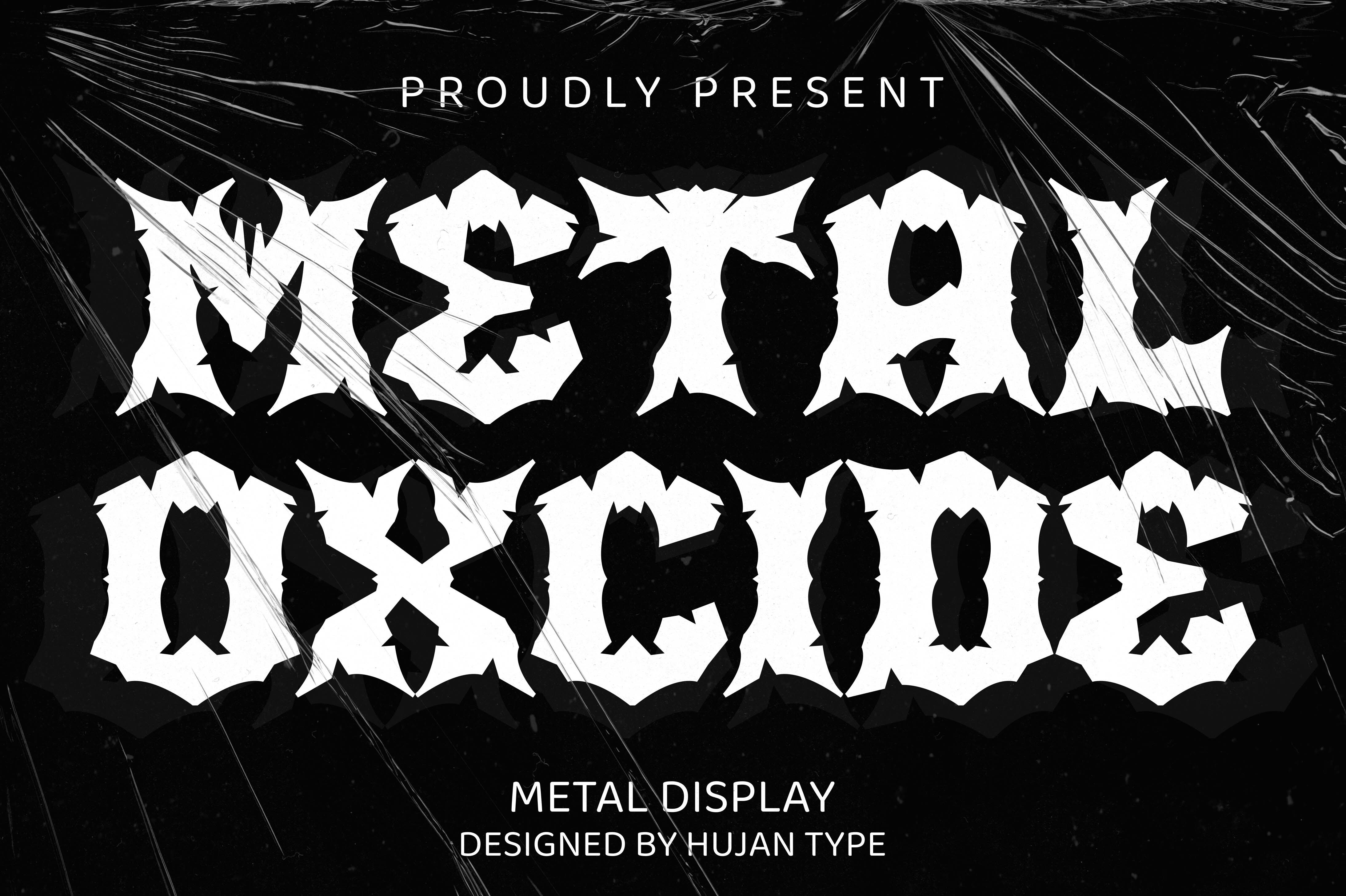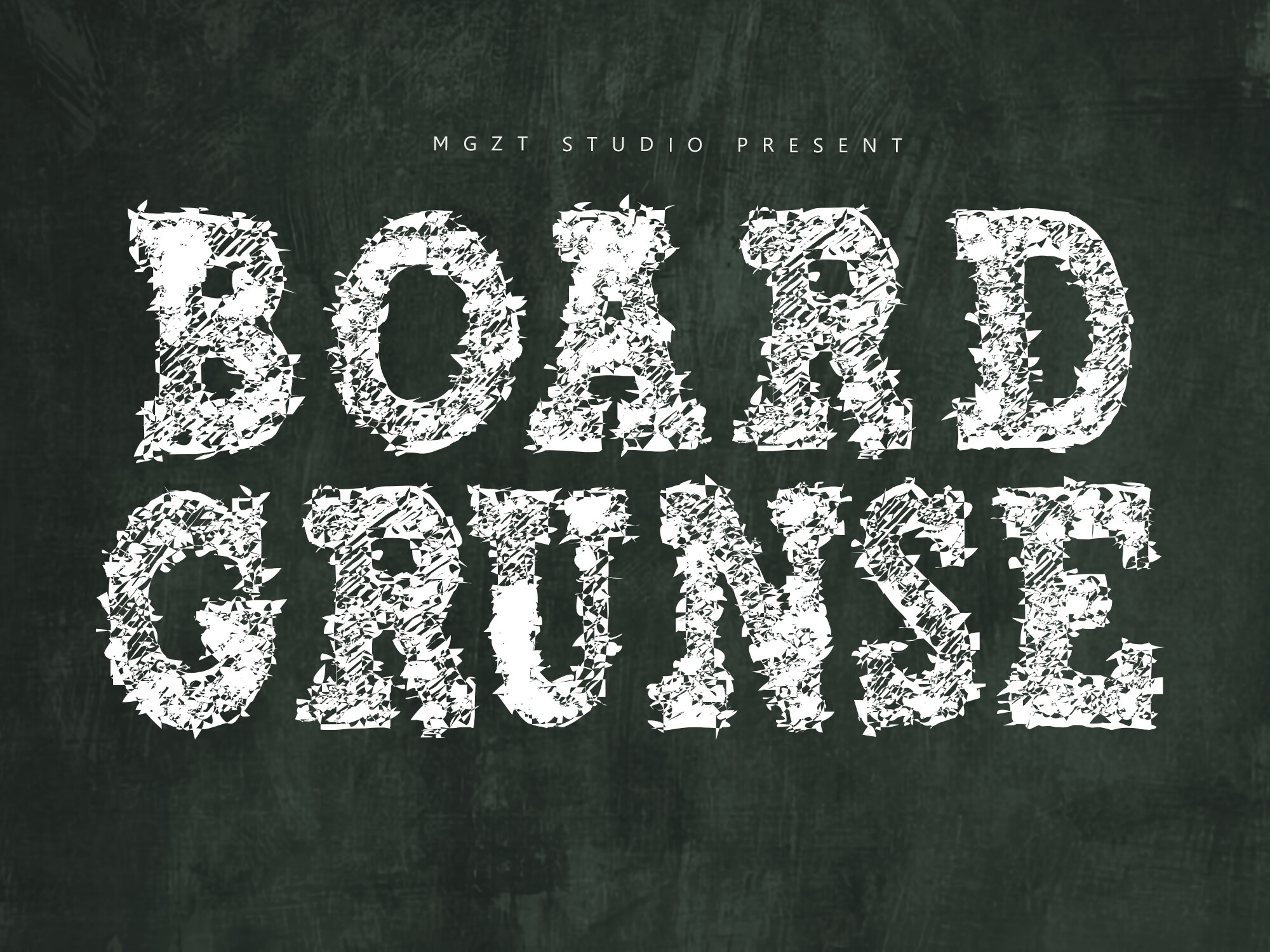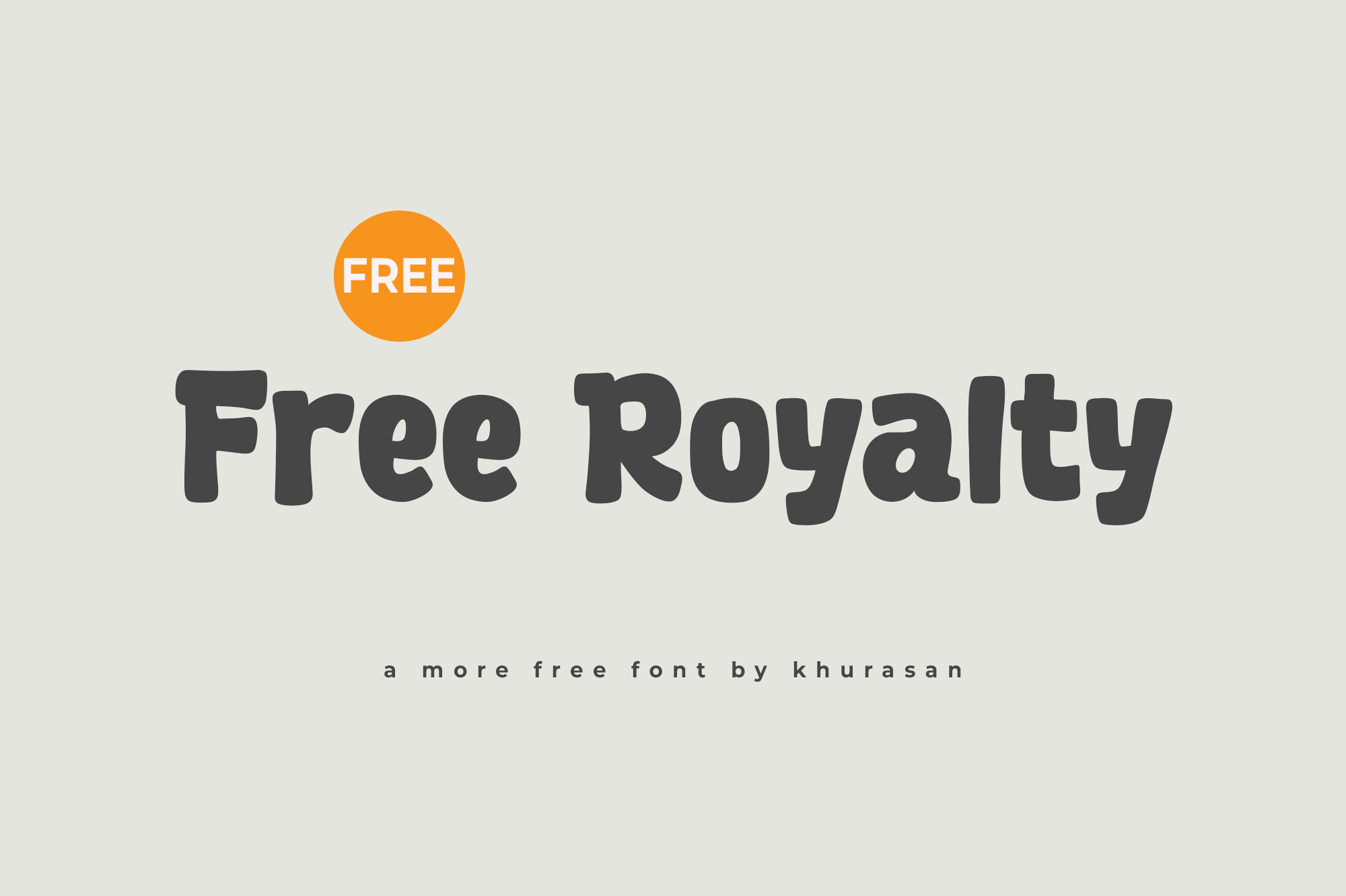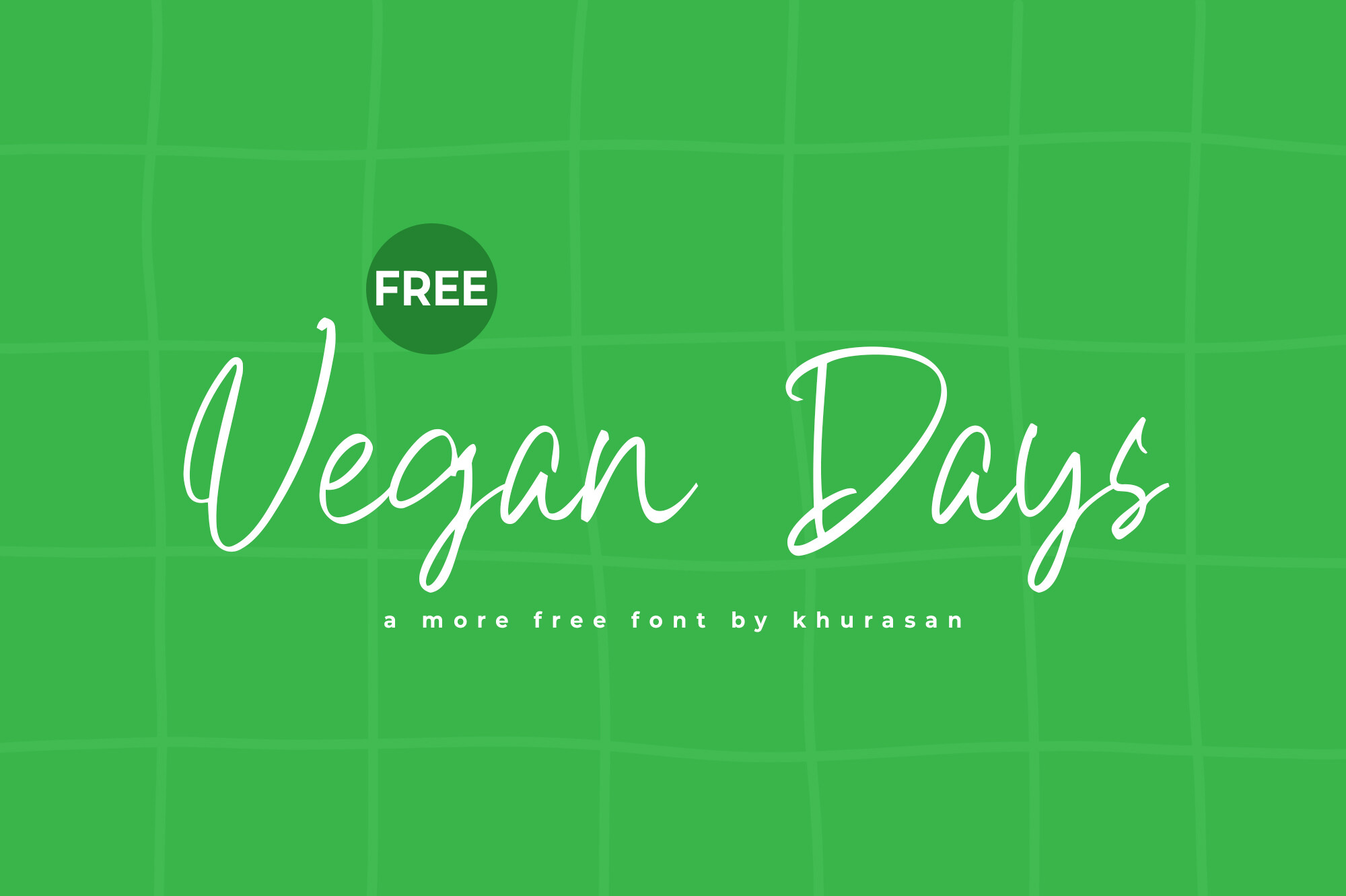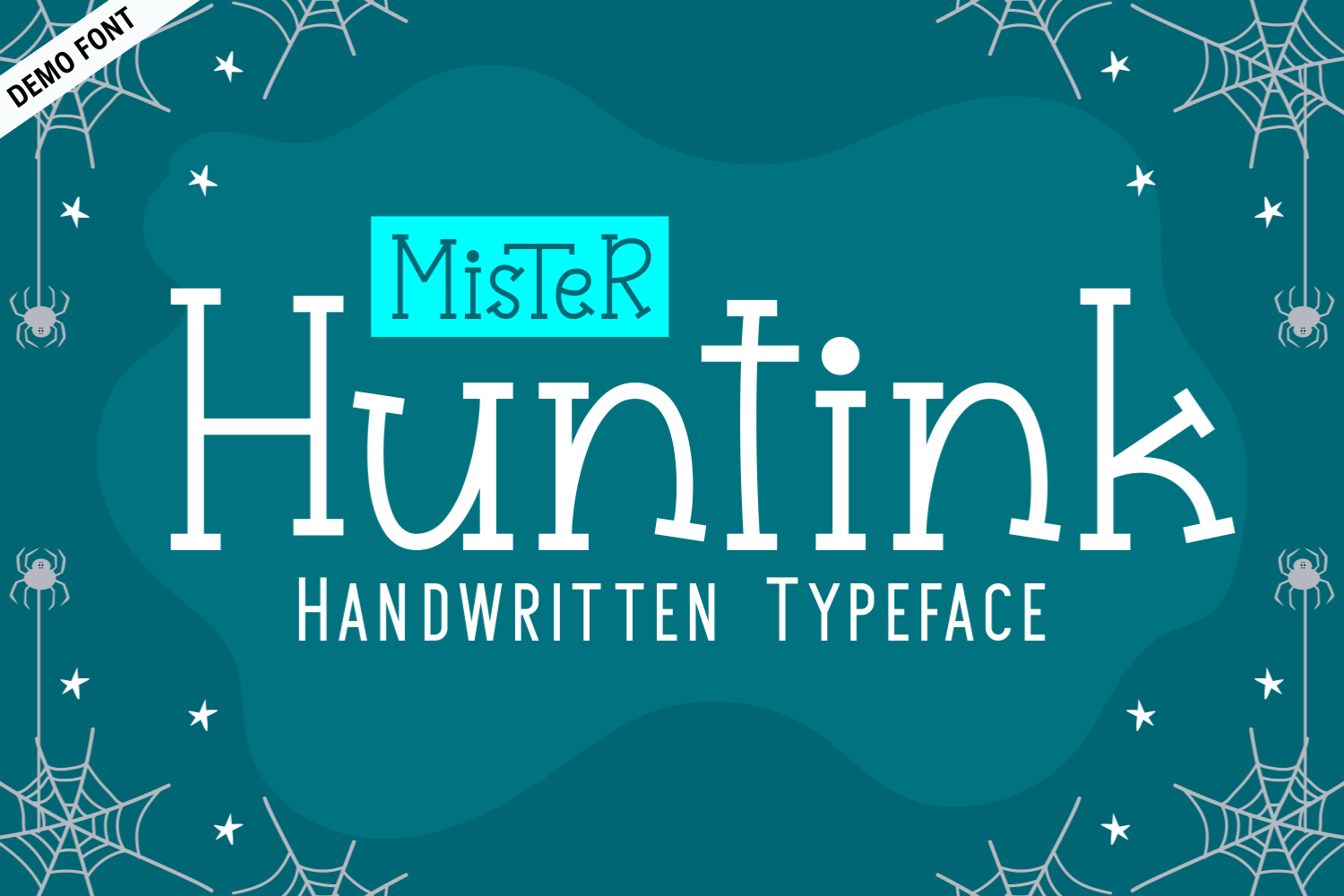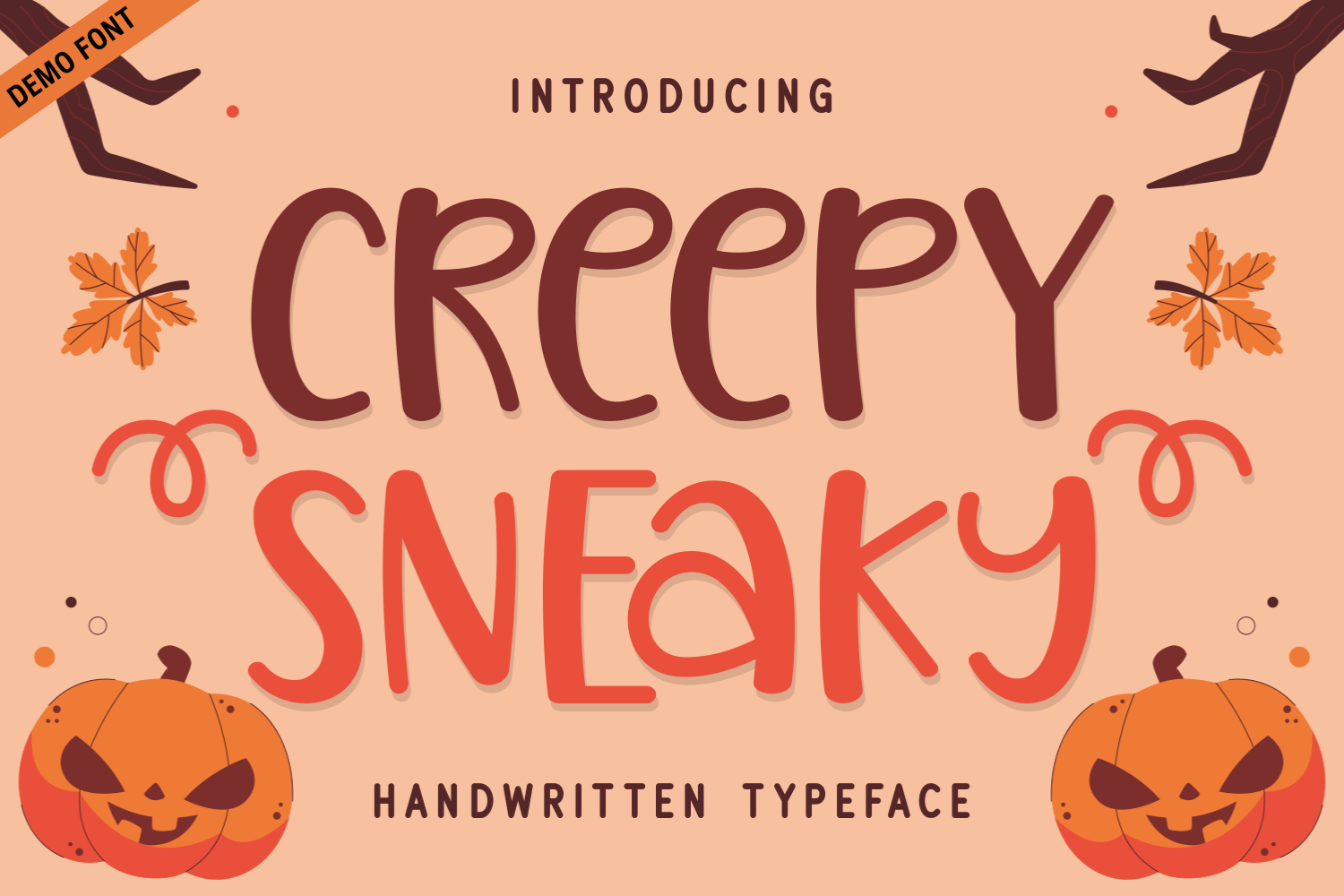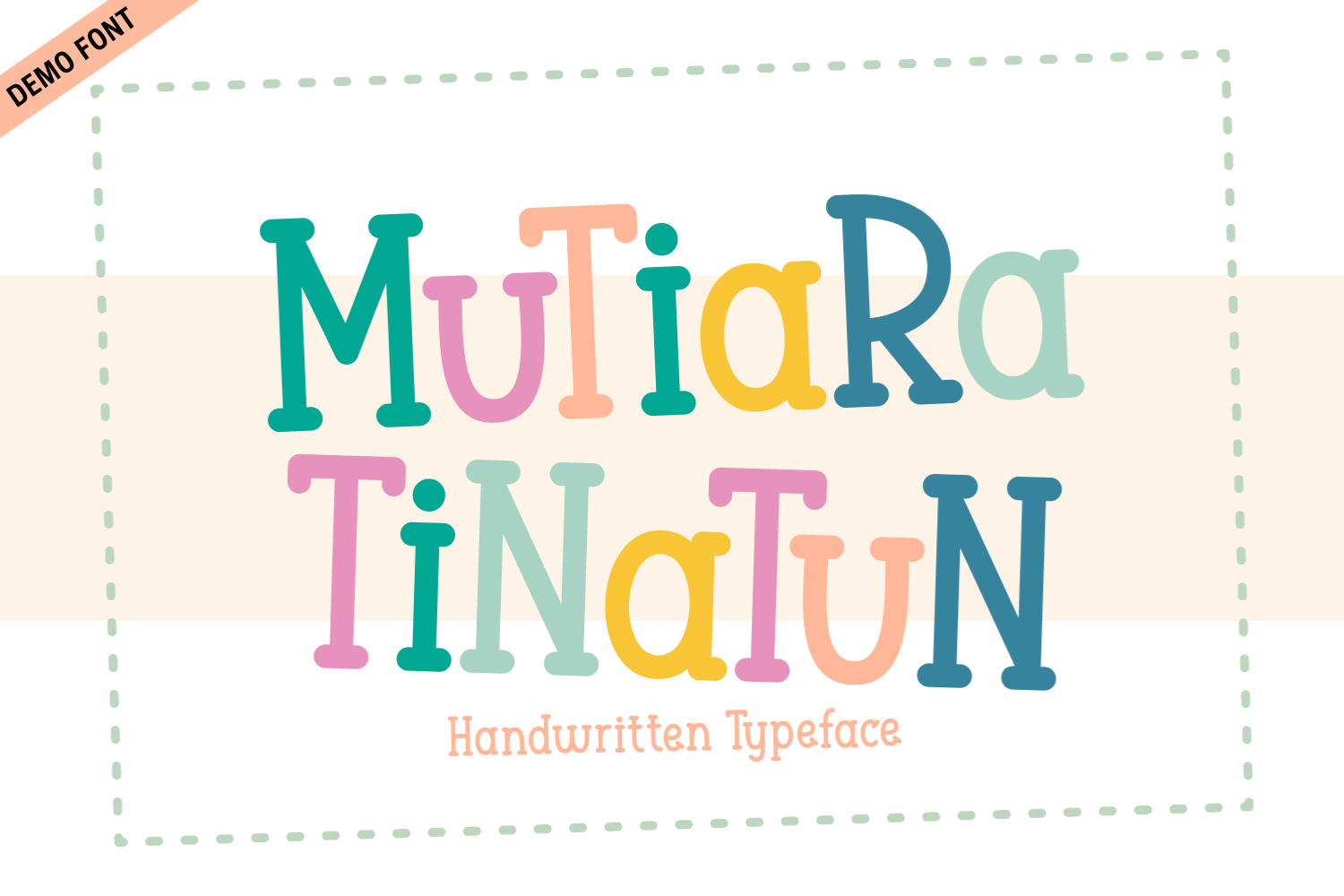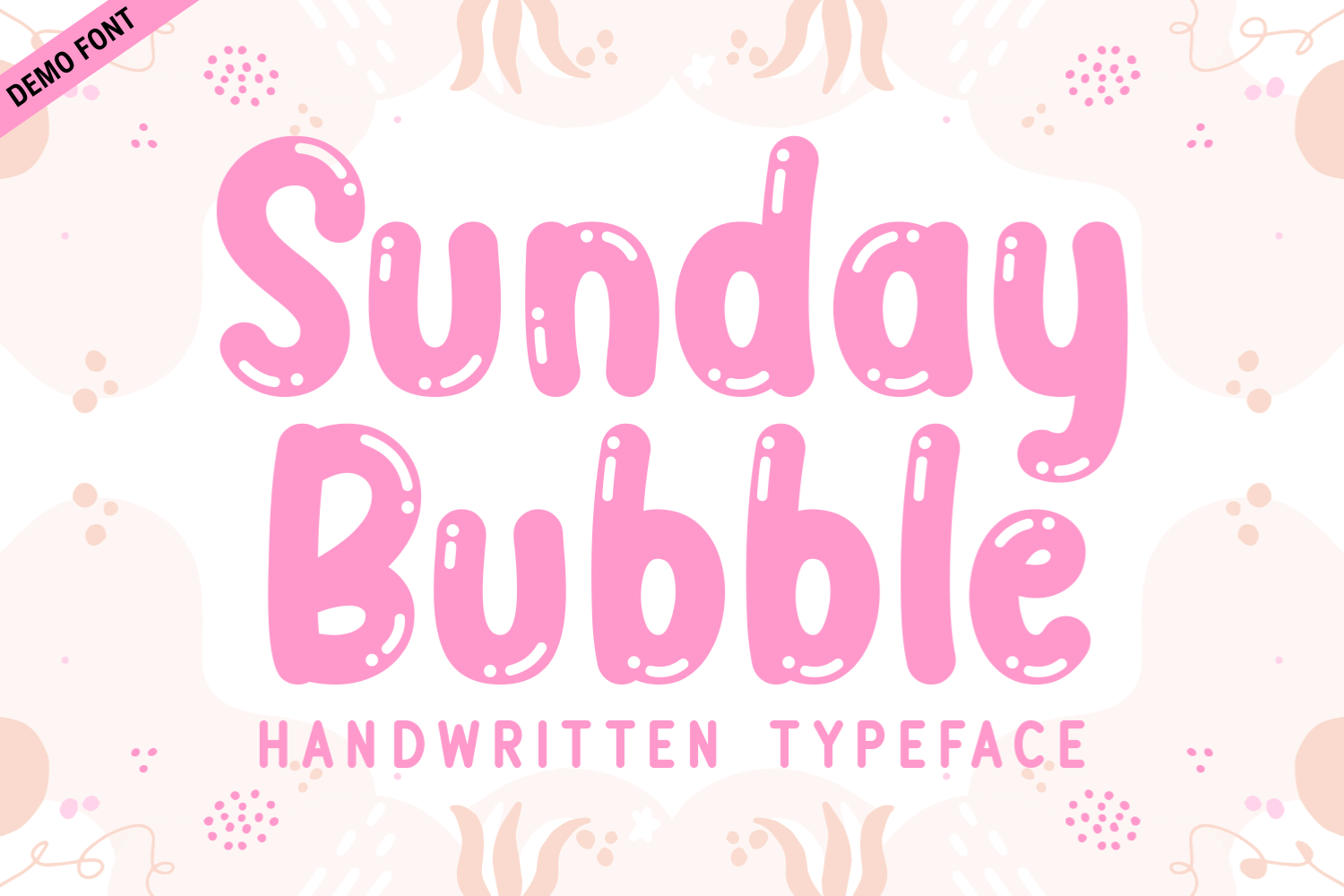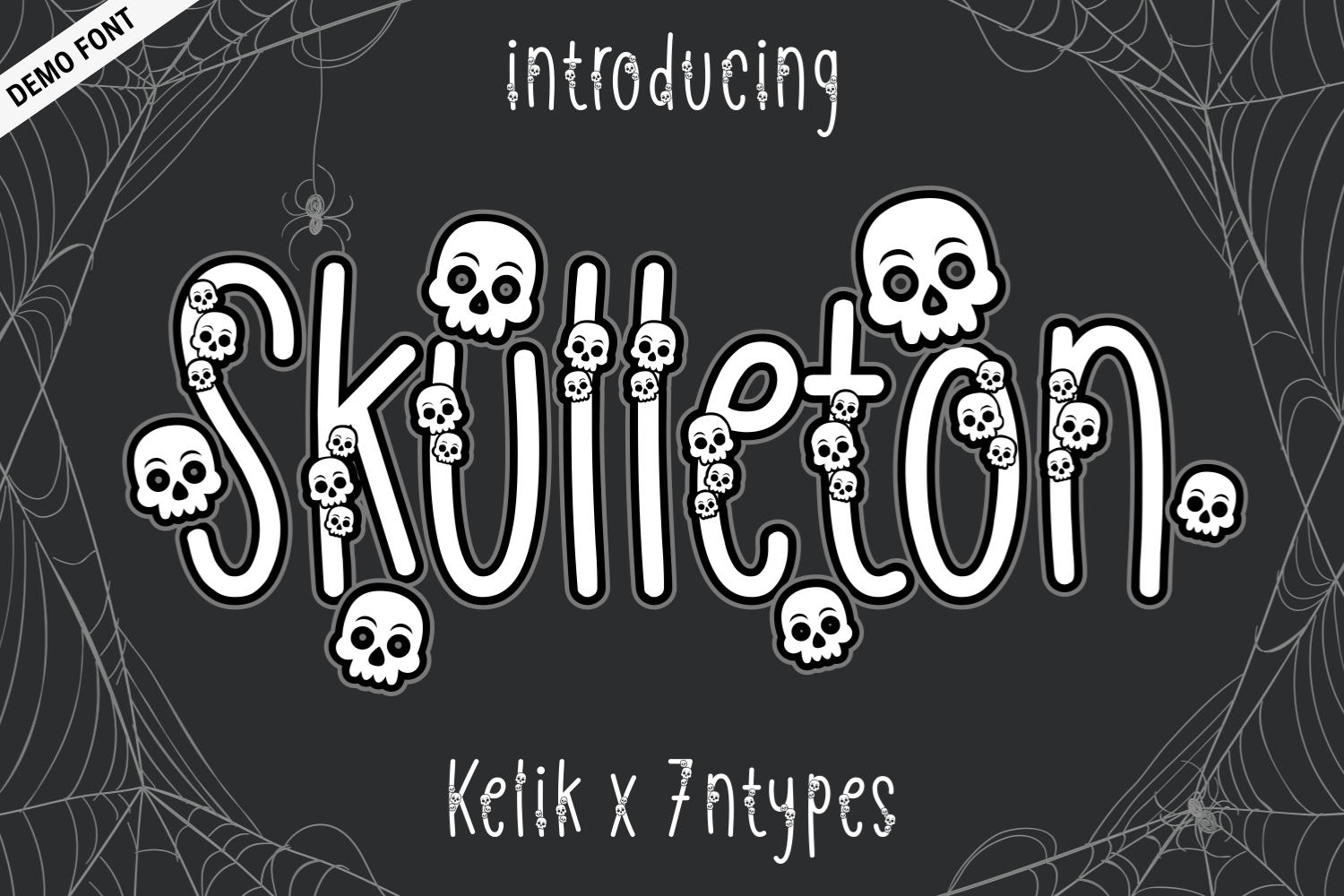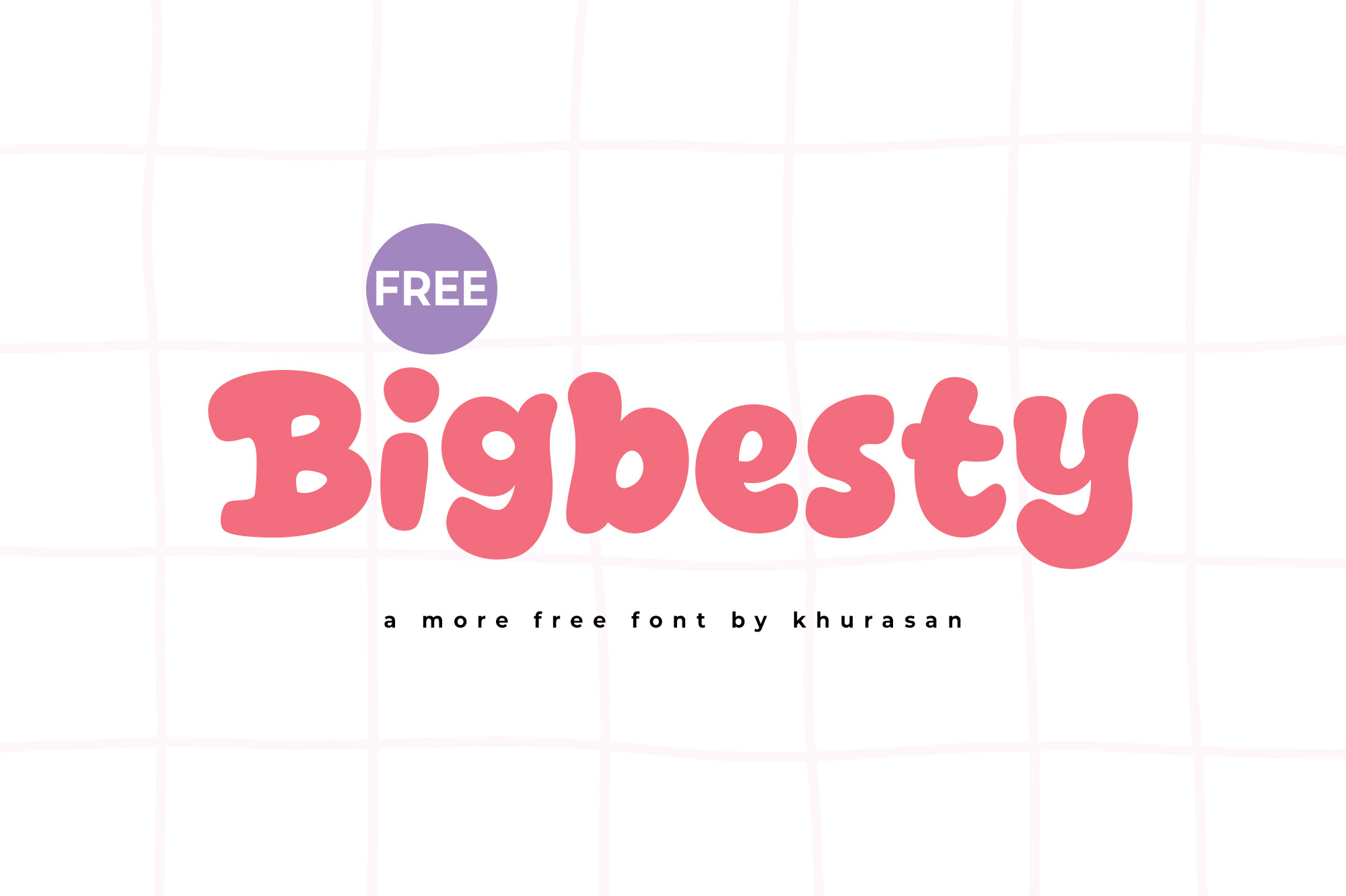
In this edition of Free Fonts Friday, we present an exciting collection of fonts that are not only visually captivating but also available for free commercial use. Each font offers a unique style, from the bold and edgy Metaloxcide to the playful and quirky Mutiara Tinatun. Whether you're designing logos, posters, or social media graphics, these fonts cater to a variety of creative projects. Explore the descriptions of each font below to find the perfect match for your next design endeavor.
Metaloxcide
Metaloxcide is a captivating blackletter display typeface that embodies the fierce spirit of heavy metal music. Merging gothic elegance with bold curves and sharp edges, this font is perfect for creating eye-catching album covers, posters, and branding materials. Its striking design ensures a memorable impact while maintaining legibility, making it an excellent choice for any creative project that demands a strong visual statement. Let Metaloxcide elevate your designs with its unique blend of aggression and clarity.
Boardgrunse Regular
Step into the whimsical world of Board Grunse, a delightful sketch-styled font that captures the essence of playful creativity. This font fuses a nostalgic handwriting style with a raw grunge aesthetic while ensuring excellent legibility. Its quirky design elements evoke feelings of fun and charm, making it perfect for various creative projects, from branding to children's books. Board Grunse brings a unique flair to your designs, balancing playfulness with functionality for engaging visual communication.
Free Royalty
Free Royalty is a charming modern display font that brings a delightful touch to your designs. Its clean lines and playful curves make it perfect for a variety of applications, including posters, logos, and magazines. This versatile font can be effortlessly paired with numerous design projects, enhancing their visual appeal and ensuring they stand out. Whether you're creating eye-catching book covers or engaging social media graphics, Free Royalty adds a unique flair that captivates your audience.
Vegan Days
Vegan Days is a beautifully crafted handwritten script font that exudes elegance and warmth. Its smooth, flowing strokes mimic the natural rhythm of penmanship, making it an ideal choice for designs that require a personal touch. This versatile font works seamlessly across various mediums, from branding and social media graphics to invitations and minimalist logos. With its contemporary aesthetic and legibility, Vegan Days adds authenticity and style to any project, ensuring your creative vision comes to life.
Mister Huntink Demo
Mister Huntink is a delightful handwritten font that balances playful charm with sophisticated style. Its tall letterforms and dynamic stroke contrasts create a lively and engaging appearance, making it suitable for a variety of creative applications. Perfect for Halloween-themed designs, greeting cards, and branding, this font adds a handcrafted touch that brings warmth and personality to your projects. Even as a demo font, Mister Huntink stands out, making any design feel special and uniquely expressive.
Creepy Sneaky Demo
Creepy Sneaky is a whimsical handwritten font that embodies the fun and playful spirit of Halloween. Its quirky curves and uneven strokes create a lively energy, making it ideal for designs that need a touch of character and charm. Perfect for invitations, posters, and children's books, this font captures a delightful blend of spookiness and mischief. With its friendly yet slightly eerie letterforms, Creepy Sneaky invites creativity while maintaining an inviting and warm feel, suitable for various festive projects.
Mutiara Tinatun Demo
Mutiara Tinatun is a delightful handwritten font that radiates cheerful energy with its charmingly quirky design. Each letter displays a playful inconsistency, mixing upper and lowercase characters that create a lively visual rhythm. This font is perfect for projects targeting children, such as books and greeting cards, as it evokes a friendly and inviting atmosphere. Its unique personality stands out, making it an excellent choice for any design that requires a touch of creativity and fun.
Sunday Bubble Demo
Sunday Bubble is a fun and cheerful handwritten font that brings a bubbly charm to your designs. Its rounded letterforms and smooth curves create a friendly and approachable feel, making it perfect for casual projects. This versatile font works beautifully for social media graphics, invitations, and children's products while maintaining excellent readability. With its playful personality, Sunday Bubble adds a delightful touch to any design, enhancing its visual appeal and ensuring your ideas shine with positivity.
Skulleton Demo
Skulleton is a fun and spooky font that captures the essence of Halloween with its playful design. Each letter features delightful skull and crossbones details, adding a whimsical yet eerie vibe. The rounded shapes and slightly wobbly baseline enhance its quirky charm, making it ideal for festive projects. Use Skulleton for party invitations, posters, or any design that needs a touch of Halloween spirit. This font is perfect for creating memorable and engaging visuals that spread joy and festive cheer.